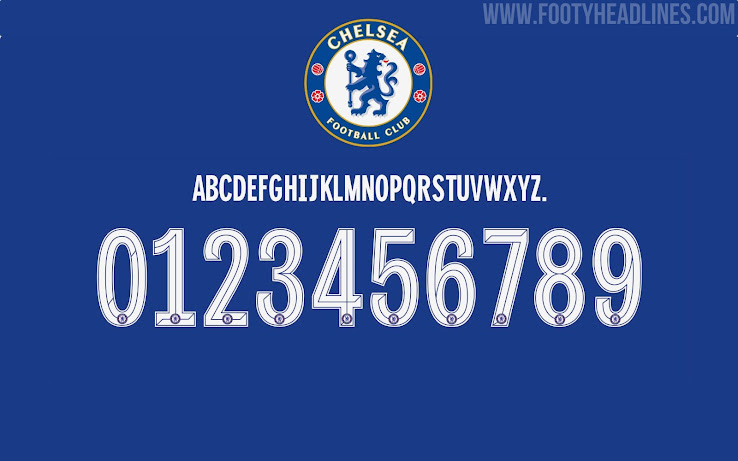
Chelsea To Keep 'Old' Kit Font For 2020-21 Season
Chelsea FC debuted the Cup version of their 2020-21 home jersey in the Champions League match against Bayern Munich. With it, we also got a look at the kit with the club's custom Cup font.
Chelsea 2020-21 Cup Kit Font Is Carried Over From Last Season
The Chelsea 2020-2021 kit font is not new but the same that was introduced for the 2020-21 season. Chelsea's 2019-20xx custom jersey font has a classy look with thin lines.
We think that the 'old' Chelsea kit font even fits the kit better than it fitted the 2019-20 home kit.